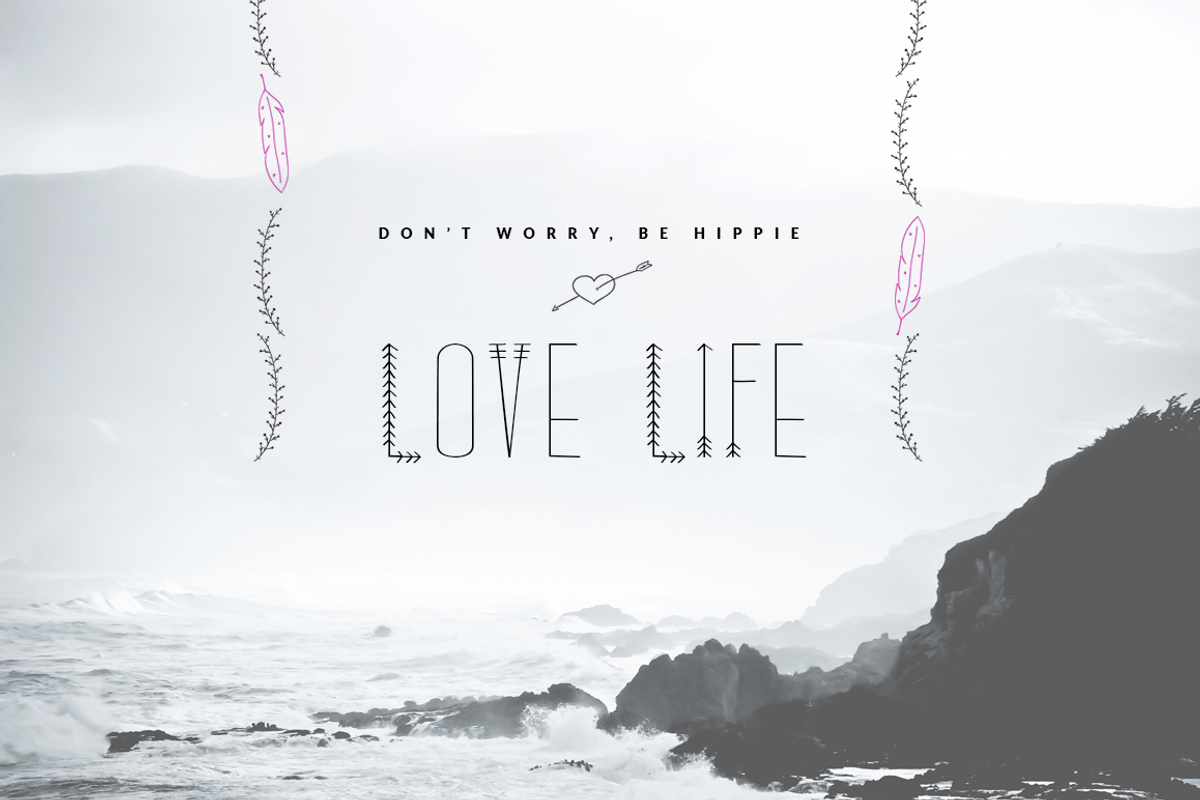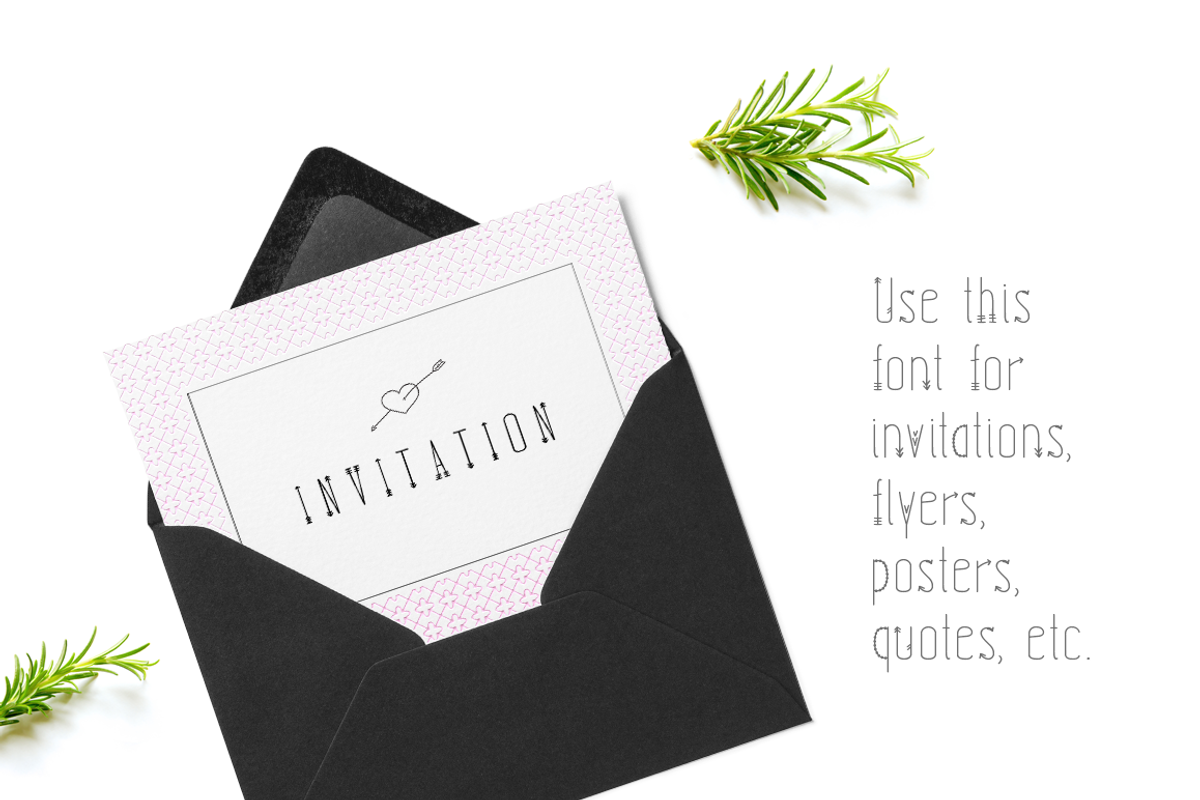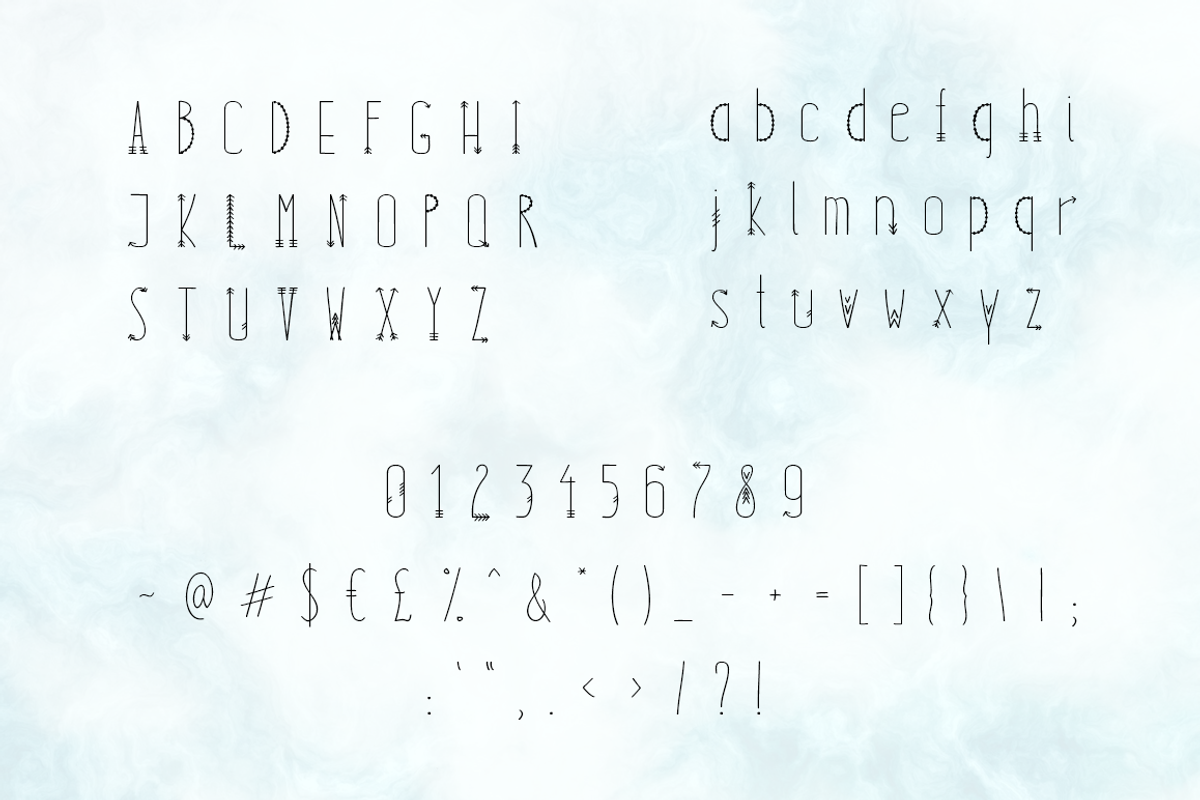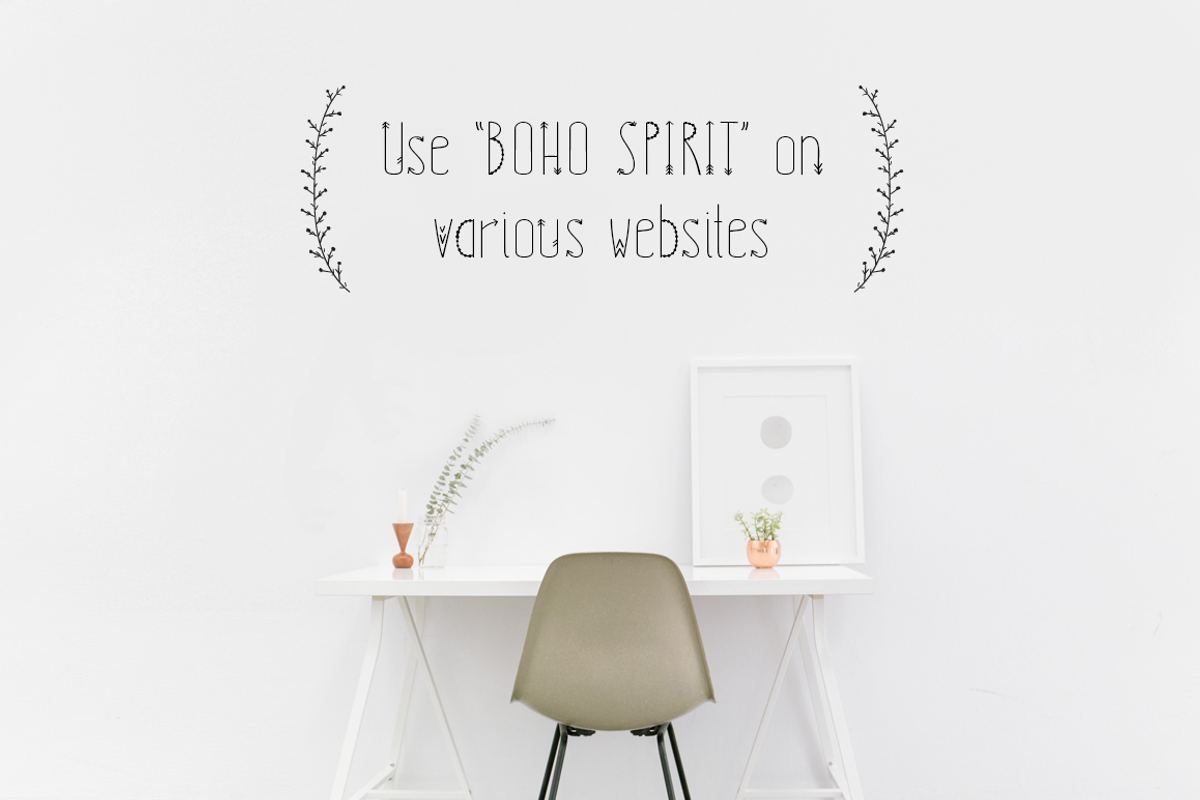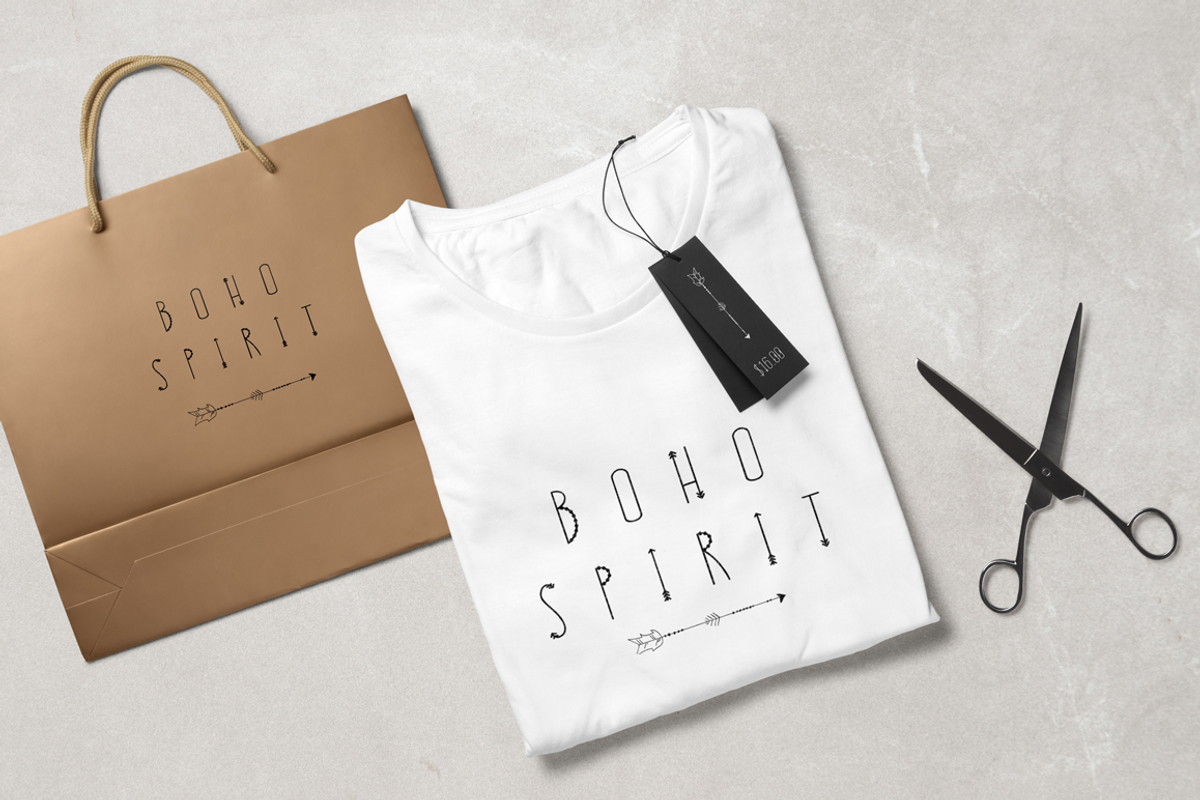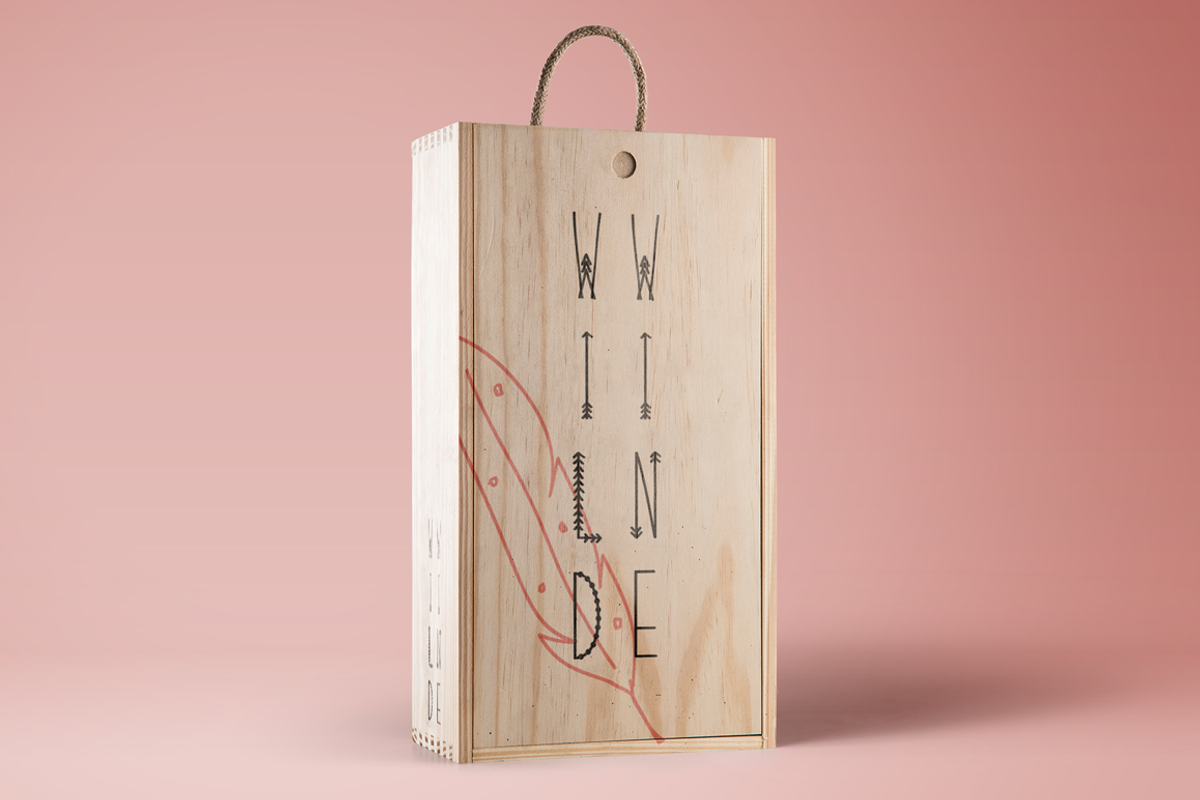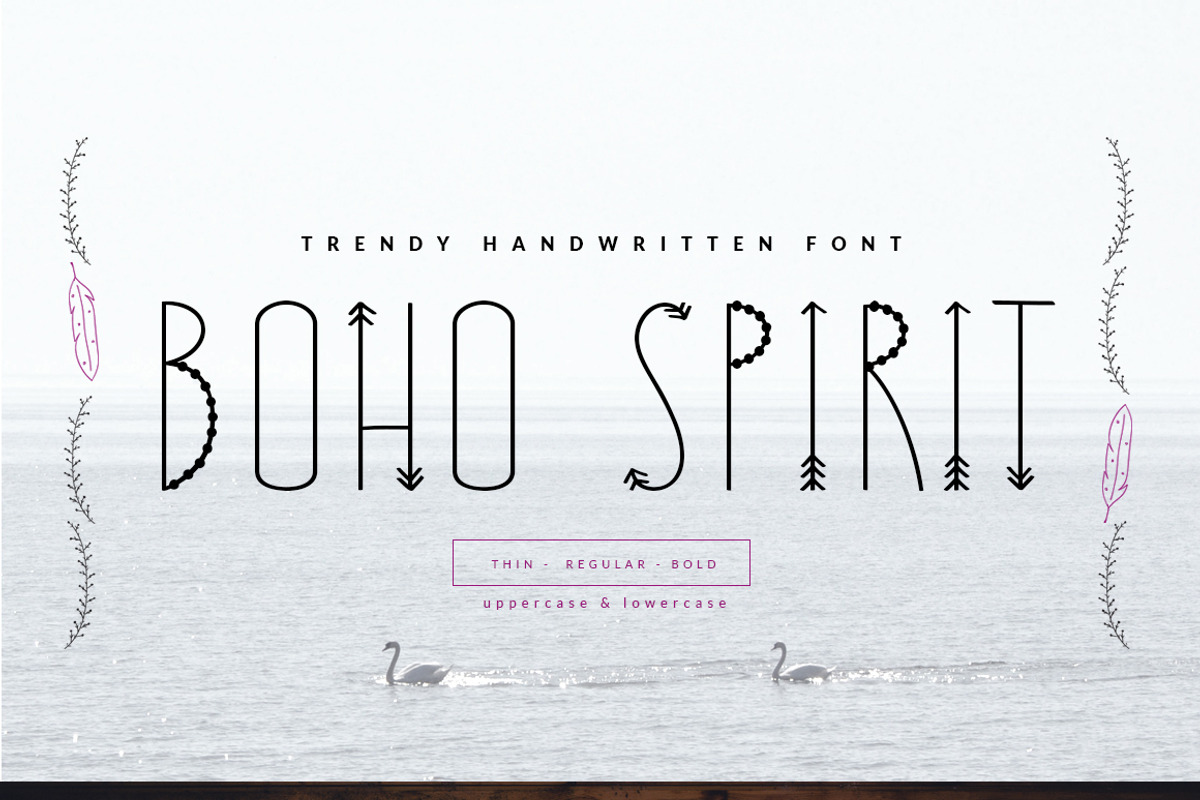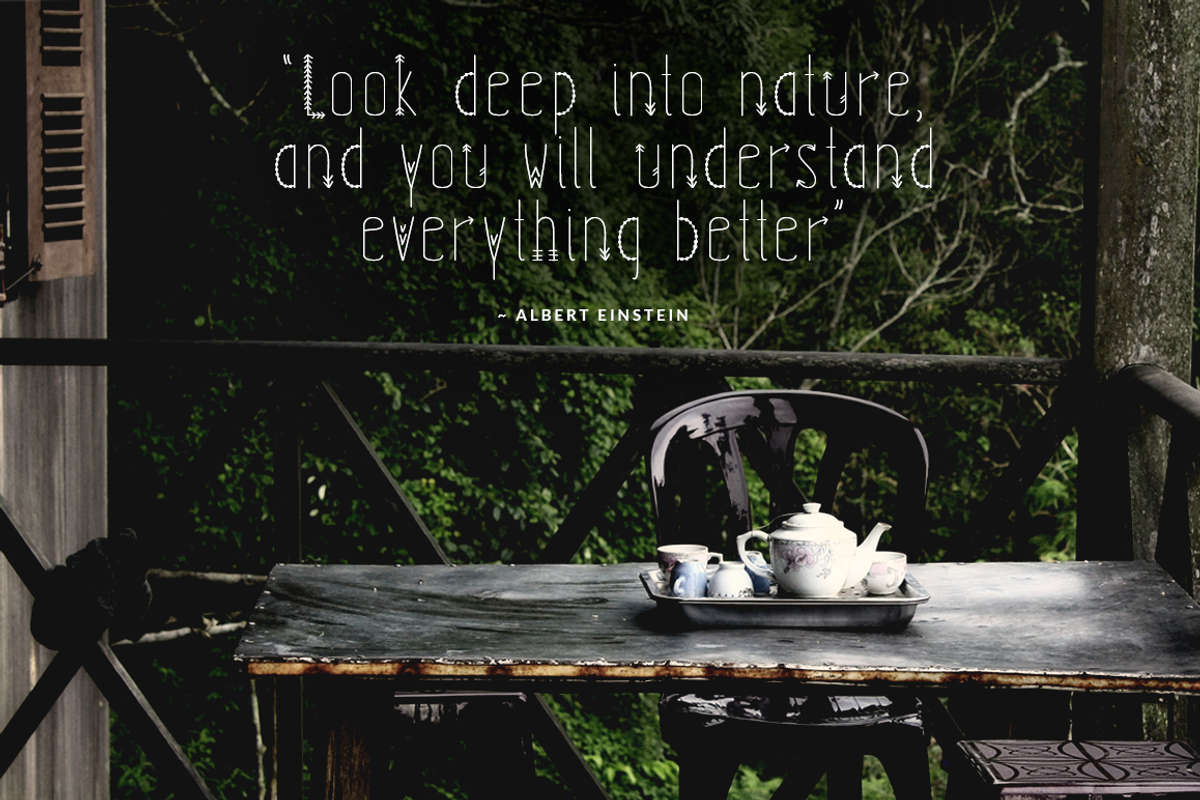
*BOHO SPIRIT* handwritten font+BONUS
Introducing bohemian handwritten font "Boho Spirit" with the small 'hipsterical' details (arrows, beads, etc.) on the characters. You can use "Boho Spirit" font on various print and web projects (blogs, invitations, flyers, posters, quotes in social media, brochures, packaging, business cards, etc.), logos.
The dreamers, free-thinkers, lovers & believers will love it!
"Boho Spirit" font consists of:
- Uppercase characters
- Lowercase characters
You will find 3 versions of "Boho Spirit":
- Thin
- Bold